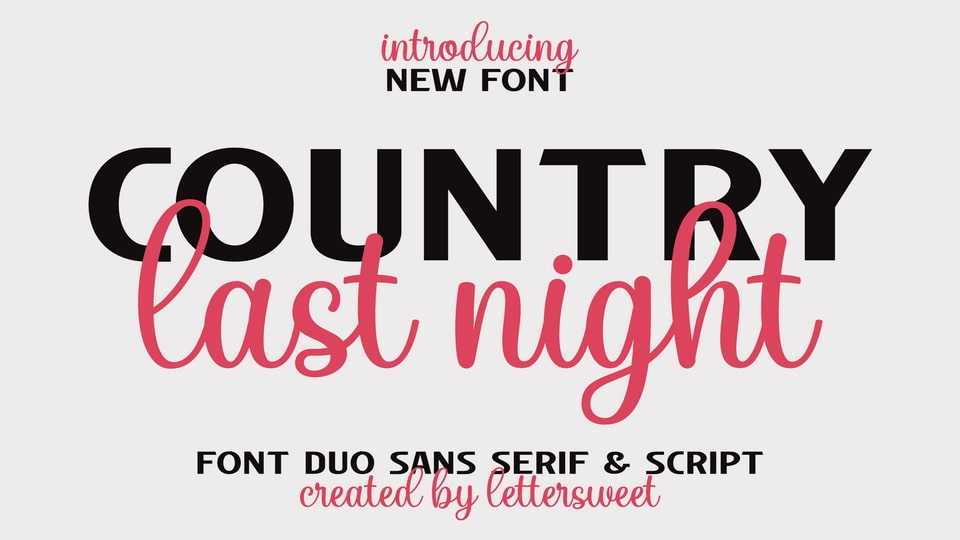
Download Country Last Night font, an extraordinary font duo weaving charm with a modern twist. This font pair manifests an unrivaled spark capable of elevating any design project to unprecedented heights.